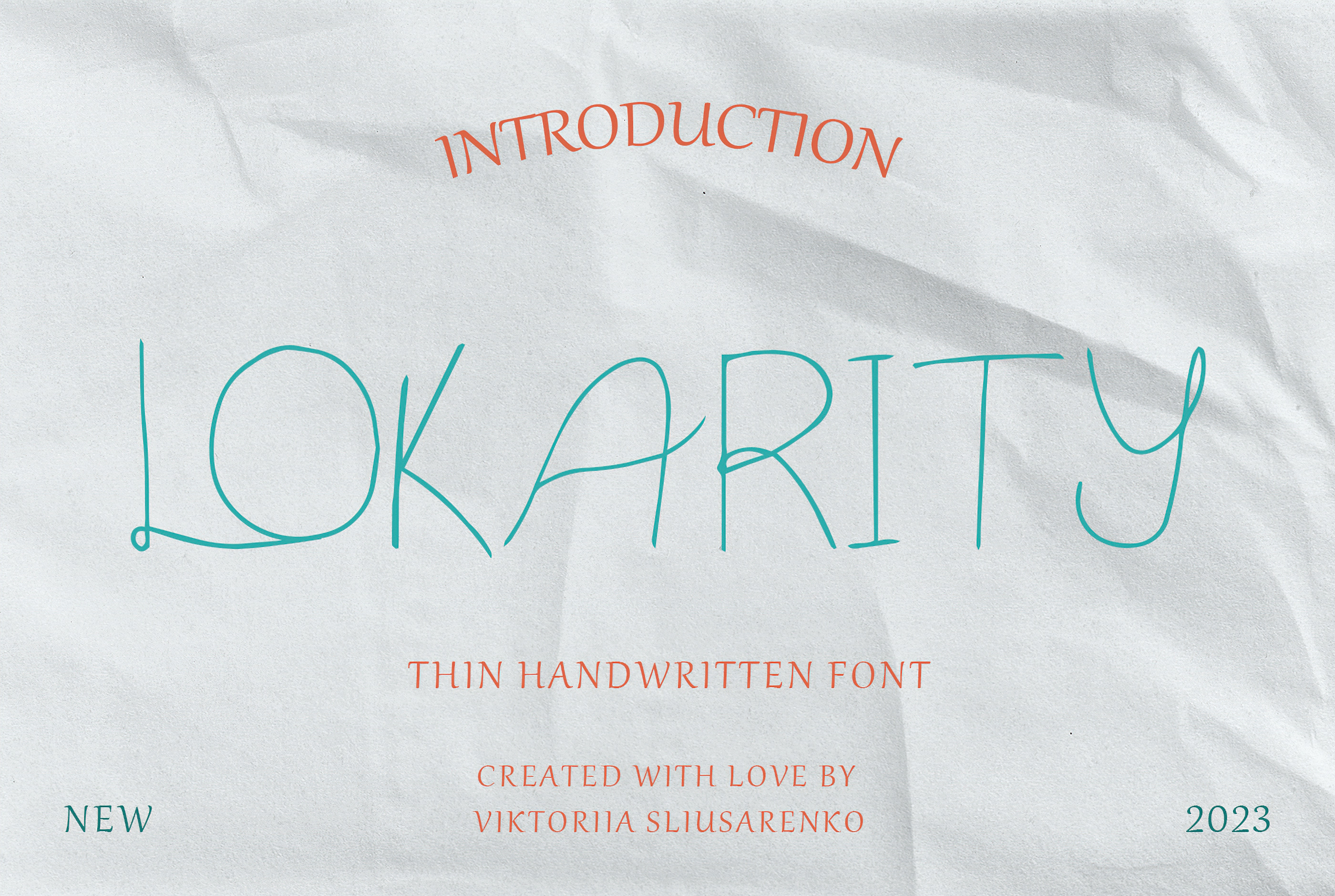
LOKARITY - thin handwritten font
Introducing Lokarity, an elegant and subtle handwritten font that adds a touch of sophistication to your designs. This vector font offers unparalleled versatility and scalability, ensuring clarity and sharpness at any size.
Lokarity beautifully replicates the delicate strokes of a gel pen with its ultra-thin tip, creating a refined and sophisticated aesthetic. The font captures the essence of precise handwriting script, resembling the meticulous notes found in a lecture book or a personal journal.
Featuring 9 meticulously crafted ligatures, Lokarity allows for seamless and fluid connections between letters, enhancing the natural flow and rhythm of the font. These ligatures add an element of elegance and cohesiveness to your text, ensuring a harmonious and visually pleasing result.
Whether you're creating elegant invitations, heartfelt handwritten quotes, or stylish editorial designs, Lokarity brings a sense of sophistication and refinement. Let Lokarity elevate your typography with its simple yet precise thin strokes, resembling the graceful and meticulous handwriting of a gel pen. Unlock the beauty of Lokarity and let your designs exude elegance and charm.